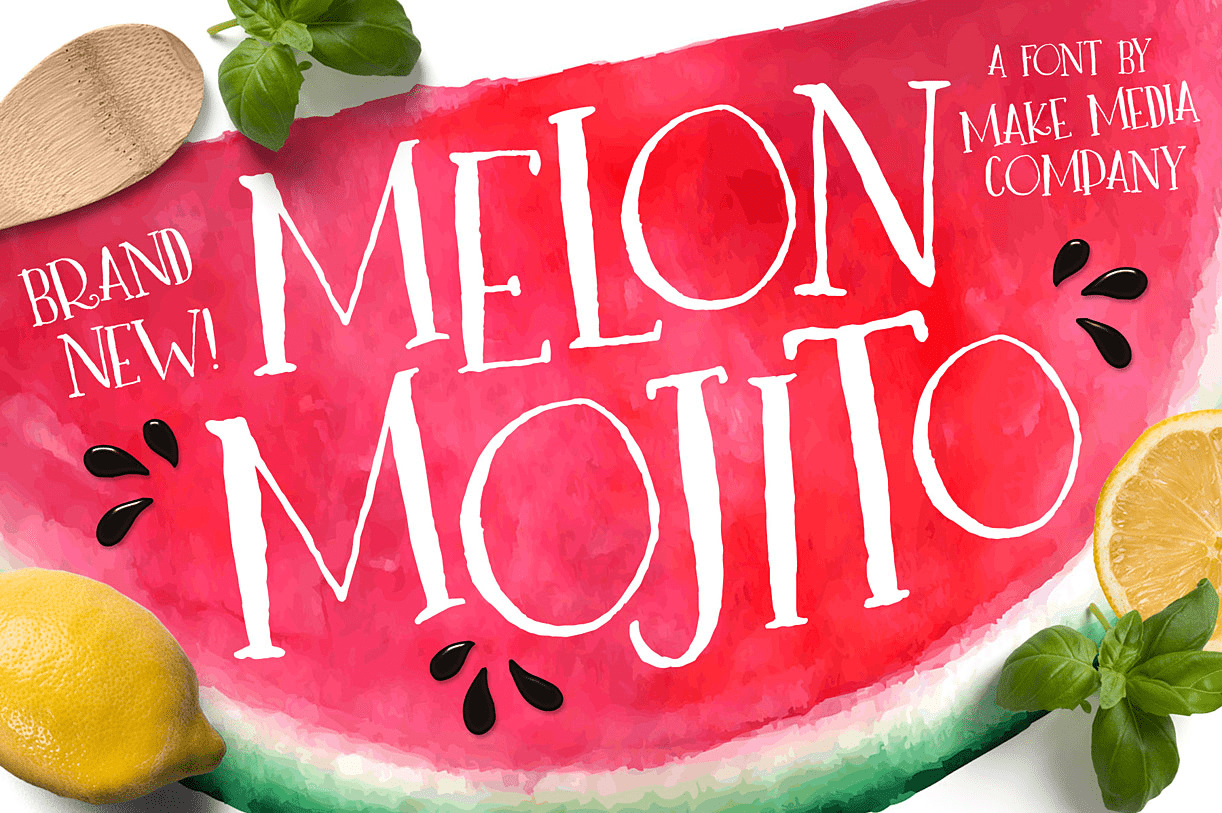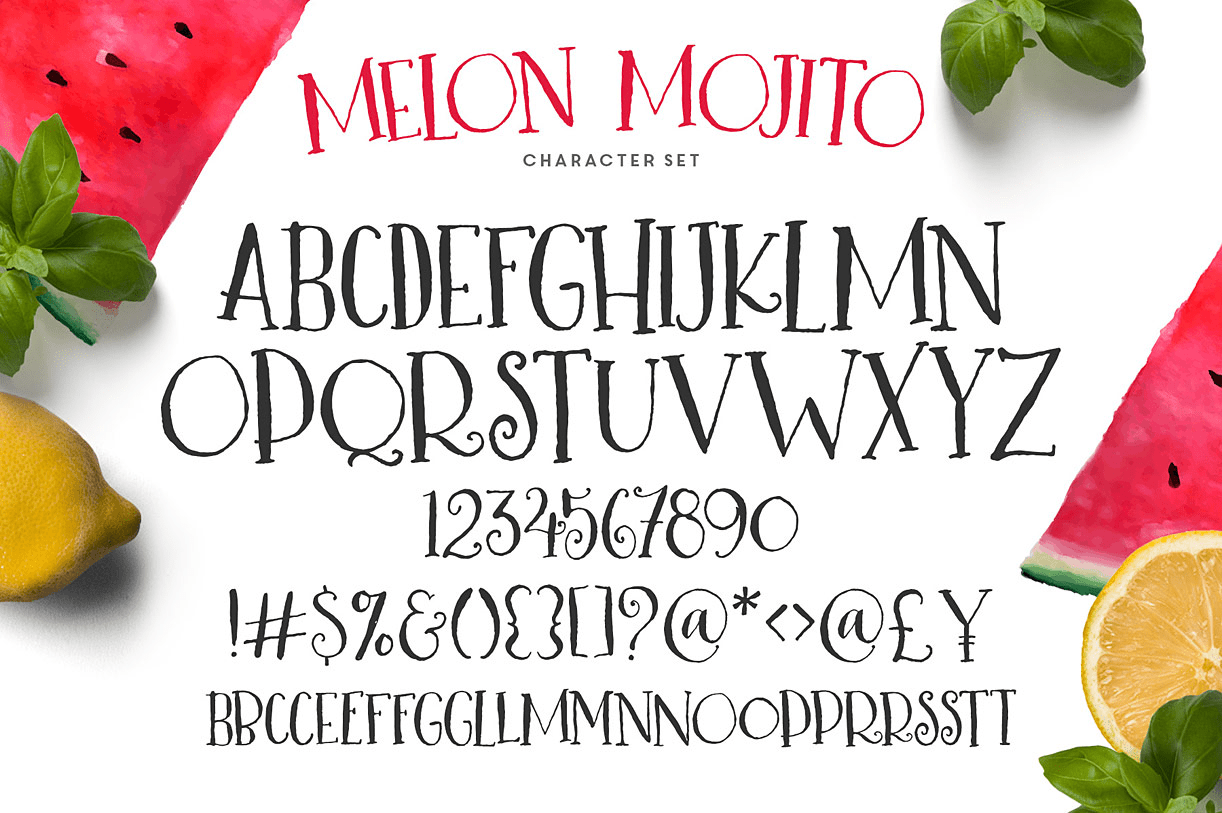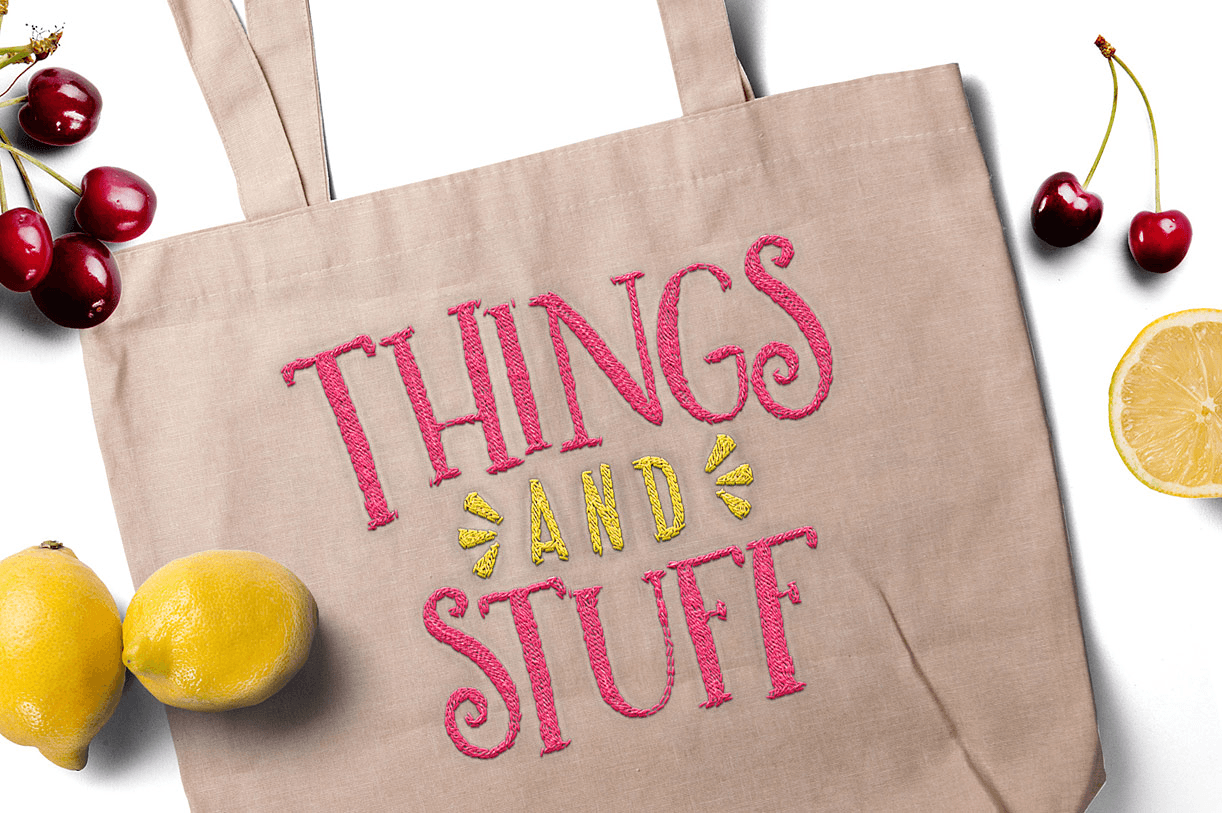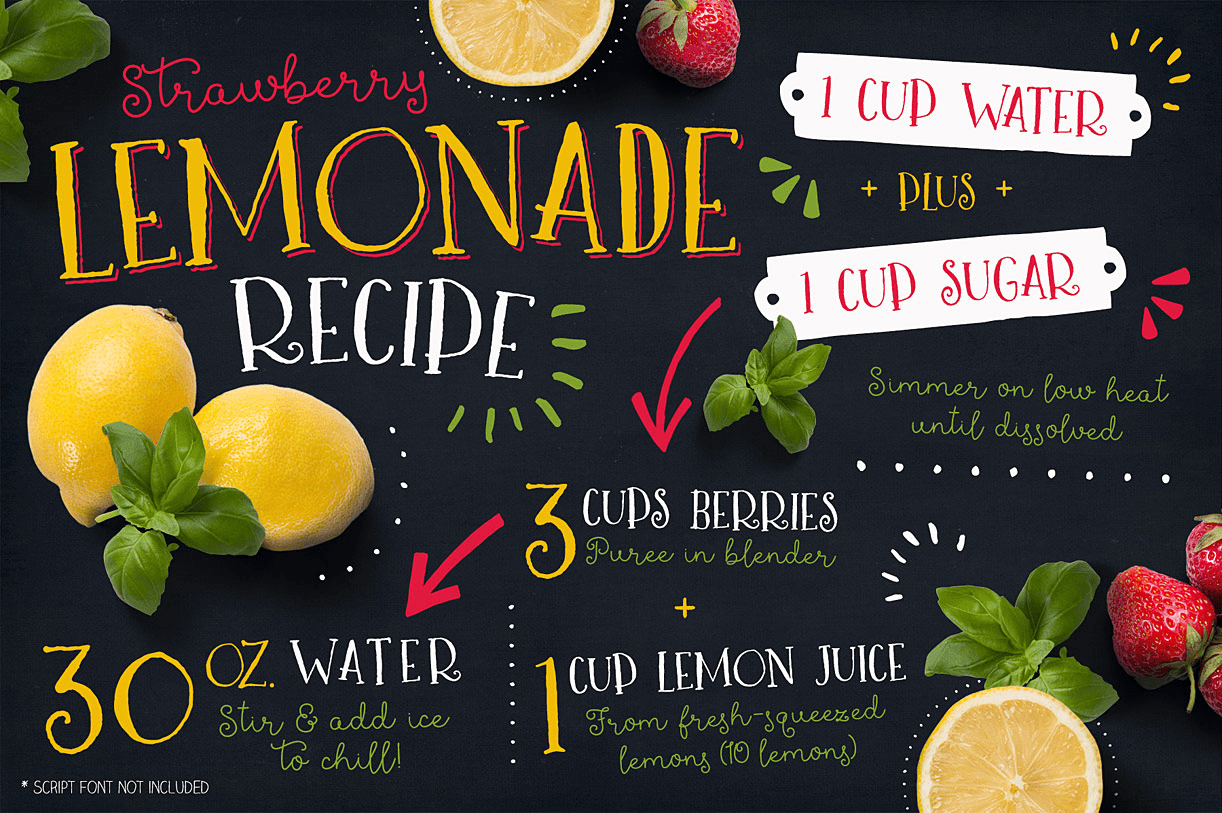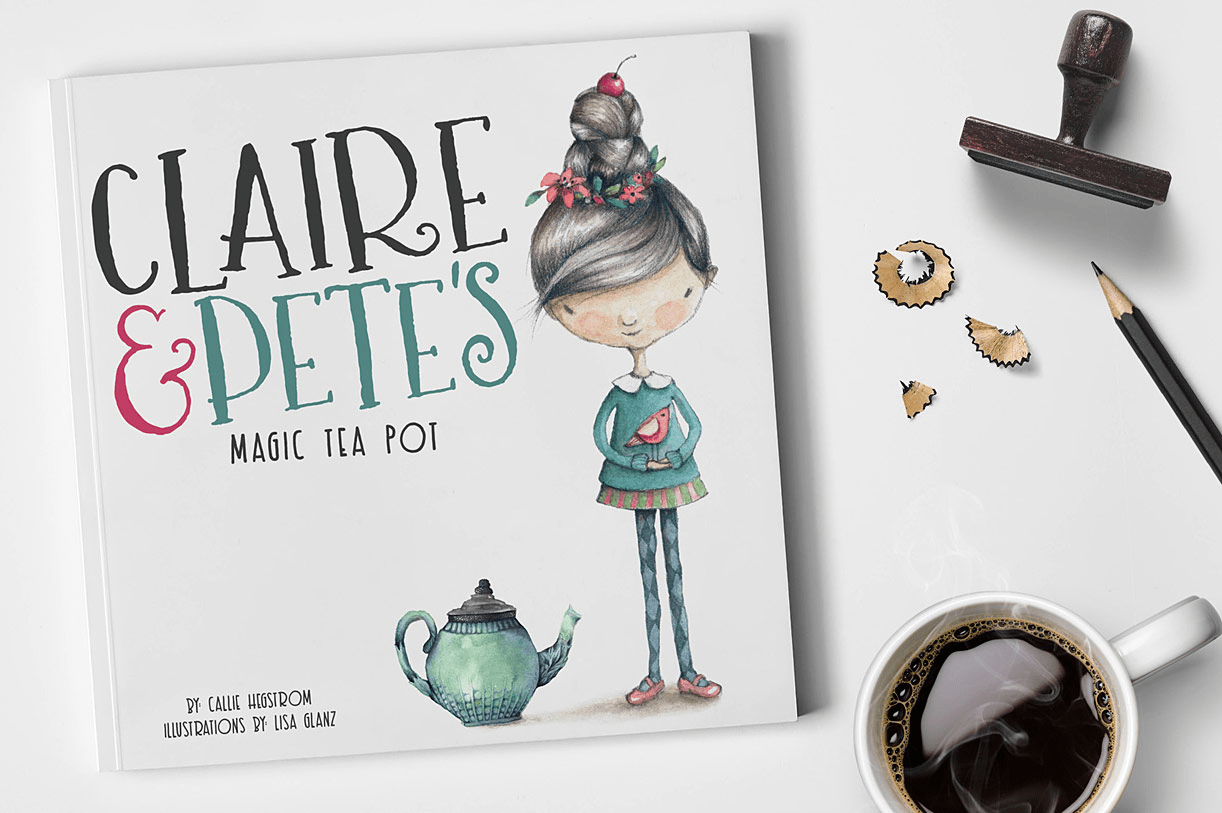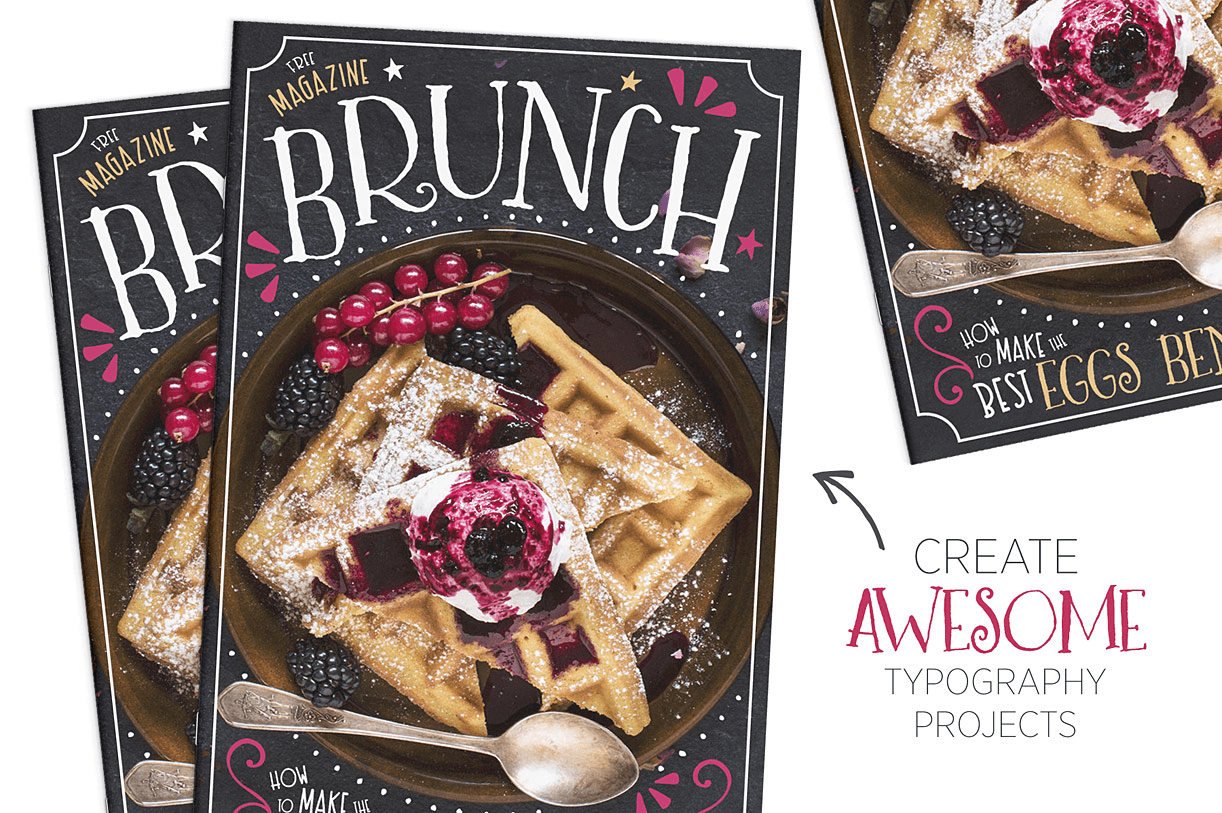
Melon Mojito
Font Family by Callie Rian & Co
Looking for a fun typography font for summer, and some adorable graphics to go with it? Well look no further, 'cause I've got you covered! ;) Melon Mojito is a silly, juicy typeface, created with a calligraphy nib for a ragged, irregular feel, and that hand-lettered look that you LOVE! :)